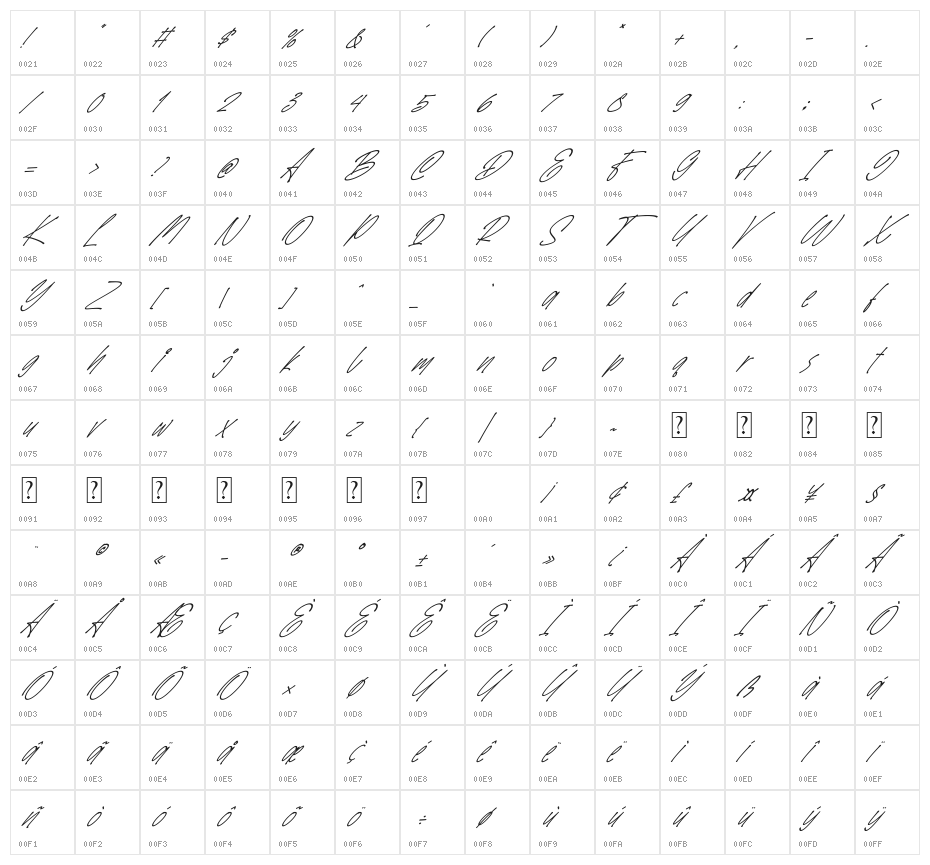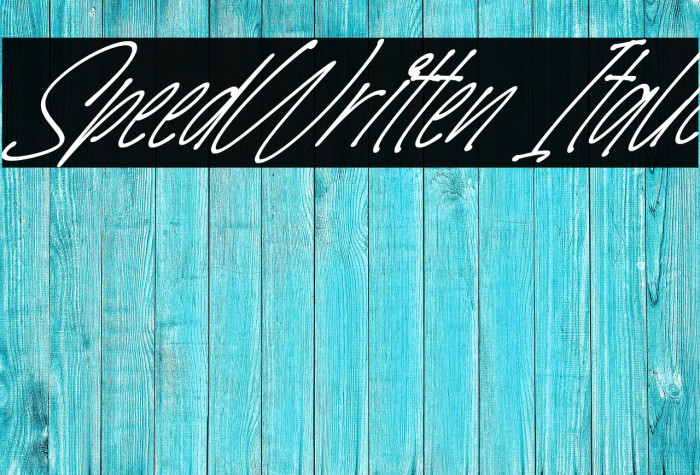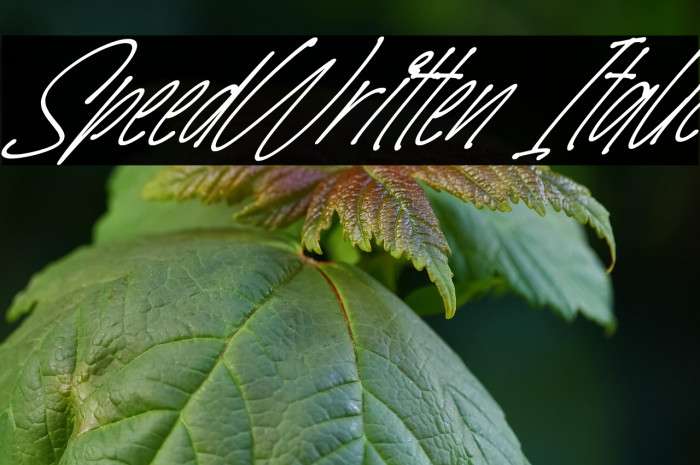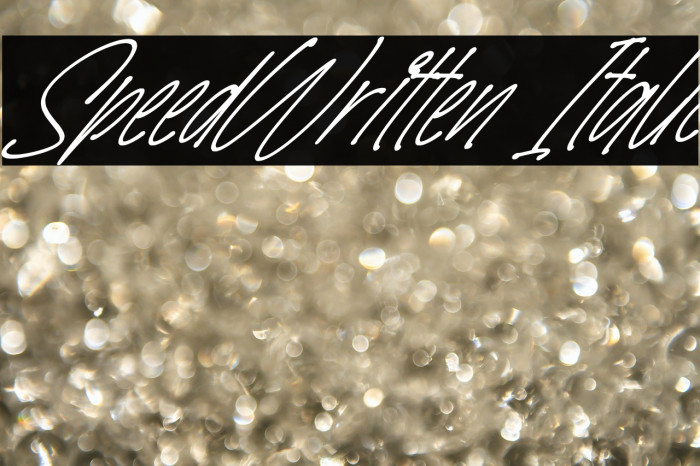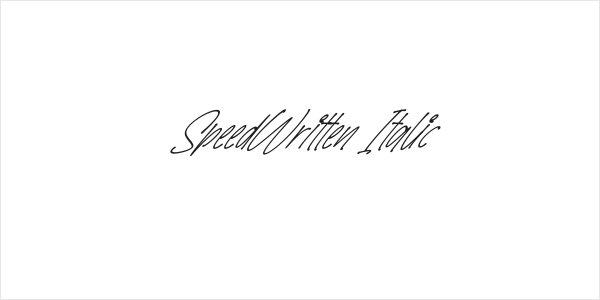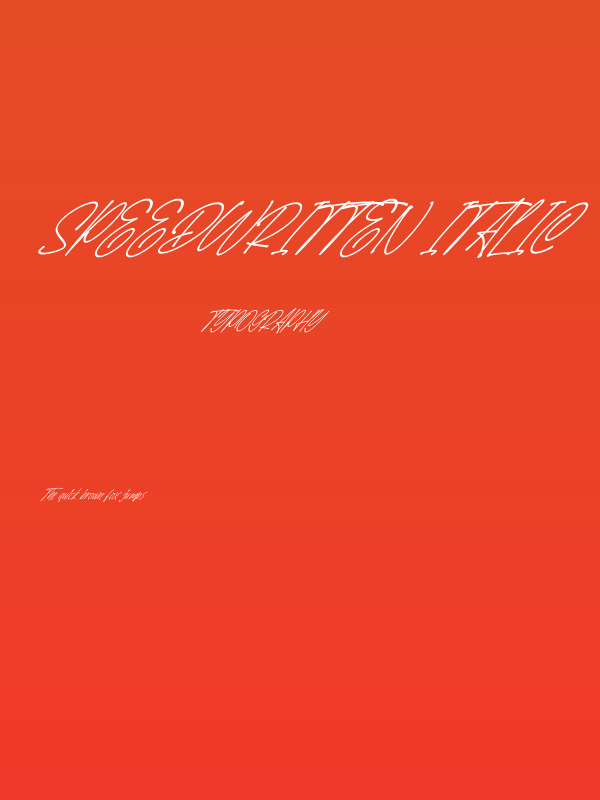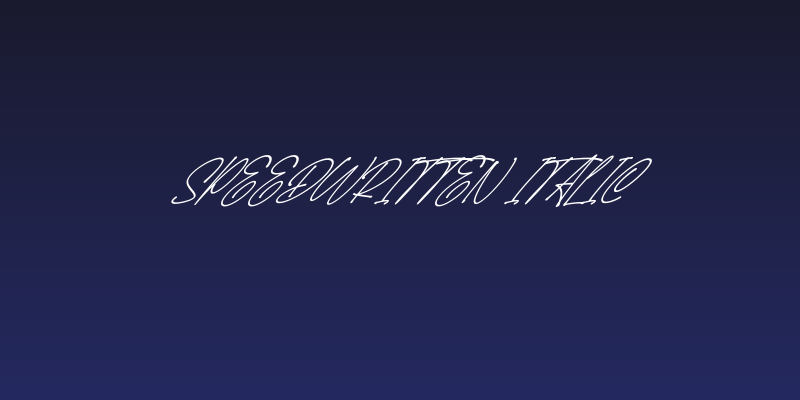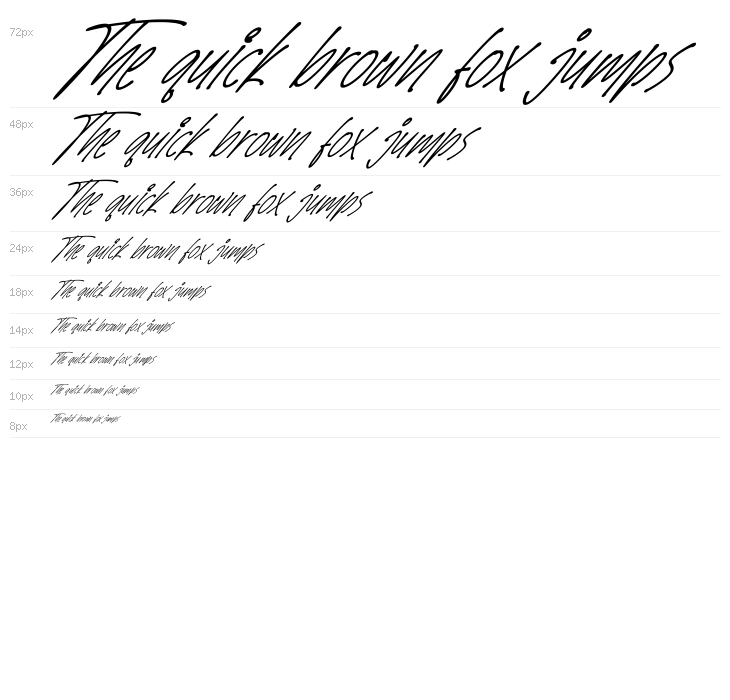
SpeedWritten Italic Font
SpeedWritten Italic Description
This font features a dynamic and fluid cursive style, characterized by its slanted, italicized form that mimics the swift strokes of handwriting. The letters are interconnected, creating a seamless flow that enhances its handwritten appearance. The uppercase letters exhibit a bold and expressive flair, while the lowercase letters maintain a consistent rhythm and elegance. The numerals and special characters are designed to complement the overall cursive theme, ensuring uniformity across all elements. The font's energetic and lively nature makes it ideal for projects that require a personal touch or an informal, yet stylish, aesthetic.
| Use Case | Logos, Invitations, Personal notes |
| Proposed Projects | Ideal for personal invitations, greeting cards, branding projects, and any design requiring a handwritten touch. |